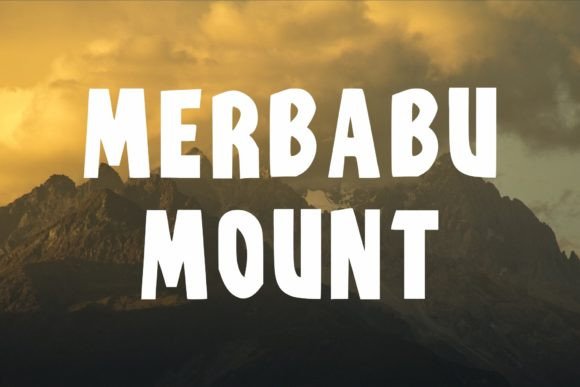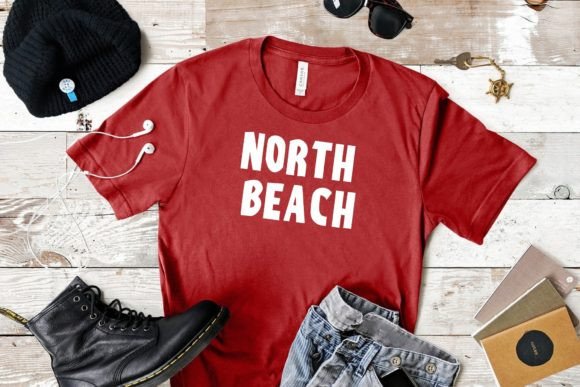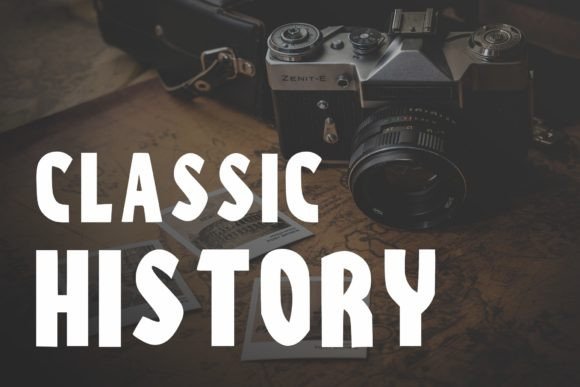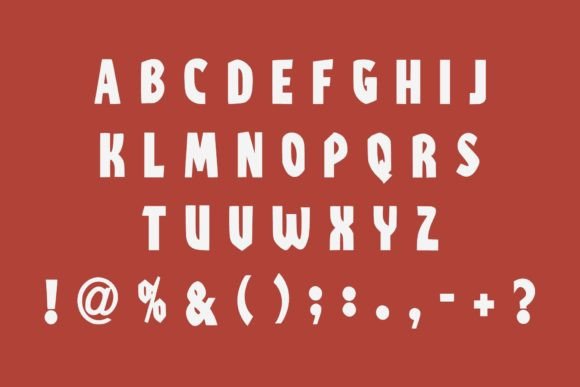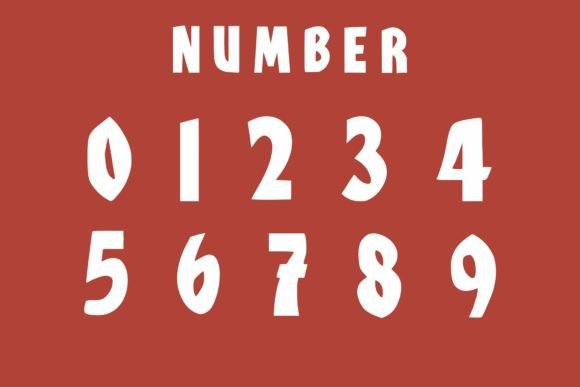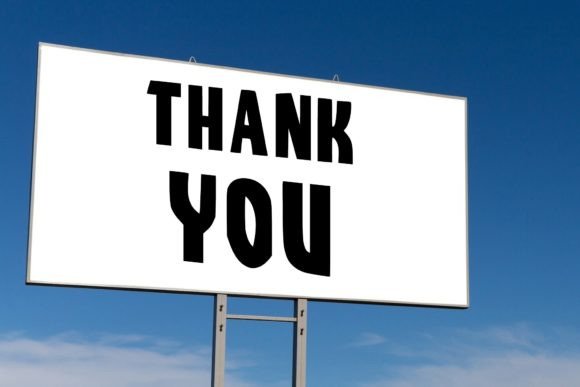
Dragon Fighter Font: Unleash Your Creativity with this Aesthetic Display Font
Are you a designer or crafter looking for a font that can add a touch of coolness to your visual designs and creations? Look no further than the Dragon Fighter Font. This aesthetic and cool display font is perfect for anyone who wants to make a statement with their designs. Its informal and casual style makes it a top choice for a wide range of projects, from product packaging to T-shirts, labels, and more.
What Makes Dragon Fighter Font So Special?
Dragon Fighter Font is a unique and stylish font that is sure to grab attention. Its bold and edgy design makes it perfect for creating eye-catching headlines, titles, and slogans. The font’s informal and casual style also makes it suitable for use in a variety of contexts, from playful and fun designs to more serious and professional ones.
One of the key features of Dragon Fighter Font is its versatility. It can be used in a wide range of design projects, including:
• Product packaging: Add a touch of coolness to your product packaging with Dragon Fighter Font. It’s perfect for creating eye-catching labels and packaging designs that will stand out on store shelves.
• T-shirts and apparel: Create stylish and eye-catching T-shirt designs with Dragon Fighter Font. It’s perfect for creating bold and edgy designs that will appeal to anyone who loves fashion and style.
• Labels and stickers: Use Dragon Fighter Font to create custom labels and stickers that will add a touch of personality to any product or surface.
• Signage and posters: Create eye-catching signage and posters with Dragon Fighter Font. It’s perfect for creating bold and attention-grabbing headlines and titles.
Why Choose Dragon Fighter Font?
So why choose Dragon Fighter Font over other fonts? Here are just a few reasons why this font stands out:
• Unique and stylish design: Dragon Fighter Font has a unique and stylish design that is sure to grab attention. Its bold and edgy design makes it perfect for creating eye-catching headlines and titles.
• Versatile: Dragon Fighter Font is versatile and can be used in a wide range of design projects, from product packaging to T-shirts and labels.
• High-quality: Dragon Fighter Font is a high-quality font that is designed to look great on any device or surface.
Dragon Fighter Font is a unique and stylish display font that is perfect for designers and crafters who want to add a touch of coolness to their visual designs and creations. Its informal and casual style makes it a top choice for a wide range of projects, from product packaging to T-shirts, labels, and more. With its versatility, ease of use, and high-quality design, Dragon Fighter Font is a must-have font for anyone who wants to create eye-catching and stylish designs.